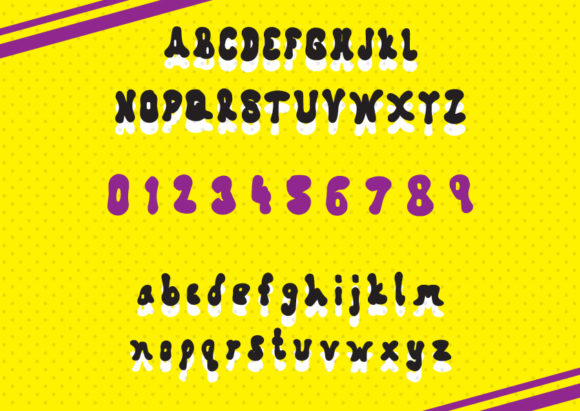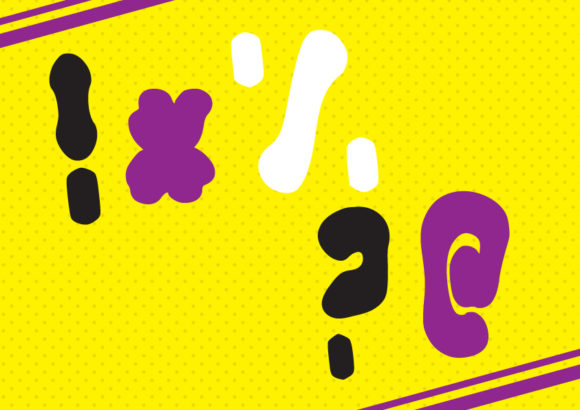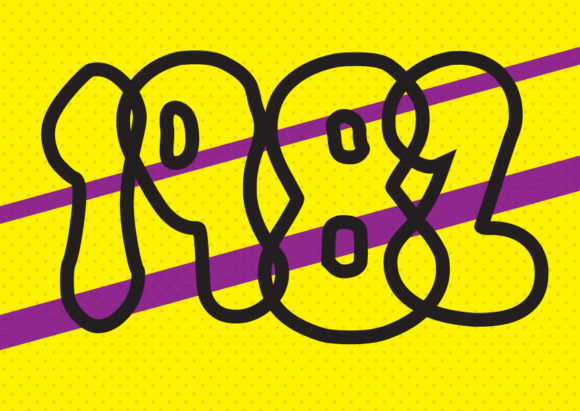
Introduction to Chomper Font
Chomper is a bold and playful display font.
Get creative with its unique look, and use it to brighten up any crafting project .
Why Choose Chomper Font?
Chomper Font offers exceptional quality and versatility, making it a valuable addition to your design toolkit. Whether you’re creating for personal projects or commercial use, Chomper Font delivers professional results.